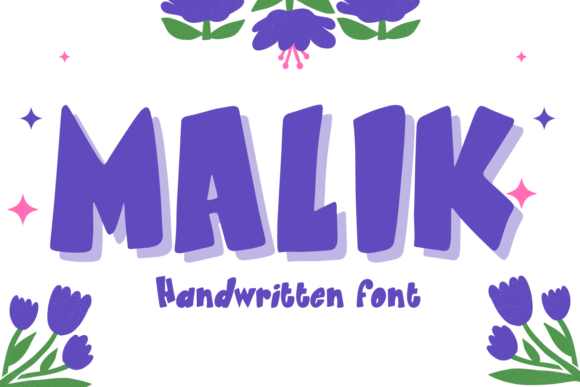
Step into a world of typographic delight with Malik Font, crafted by the ingenious minds at Sirinart. This display font is a symphony of playful curves and bold strokes that will inject an instant dose of whimsy and character into your digital creations. Whether you're a seasoned designer or a creative enthusiast, Malik Font is your gateway to unlocking a realm of unique and captivating designs.
Dive into a world of endless possibilities with Malik Font - an extraordinary creation that transcends boundaries. Born from the imagination of Sirinart, Malik Font is a bold, modern display font that captures the essence of contemporary design. Its playful curves and distinct shapes will ignite your creativity, inspiring you to craft designs that resonate with a touch of magic.
Say goodbye to mundane typography and embrace the captivating aura of Malik Font. Its dynamic presence will transform your projects, whether you're creating eye-catching social media posts, designing stunning brochures, or adding a touch of personality to your website. Malik Font is the key to unlocking designs that leave a lasting impression.
Malik Font is more than just a font - it's an invitation to embark on a creative journey filled with unique expressions. Its versatility knows no bounds, making it the perfect choice for a multitude of projects. Unleash your imagination and explore the endless possibilities that Malik Font presents, from crafting personalized greeting cards to creating stunning logos that command attention.